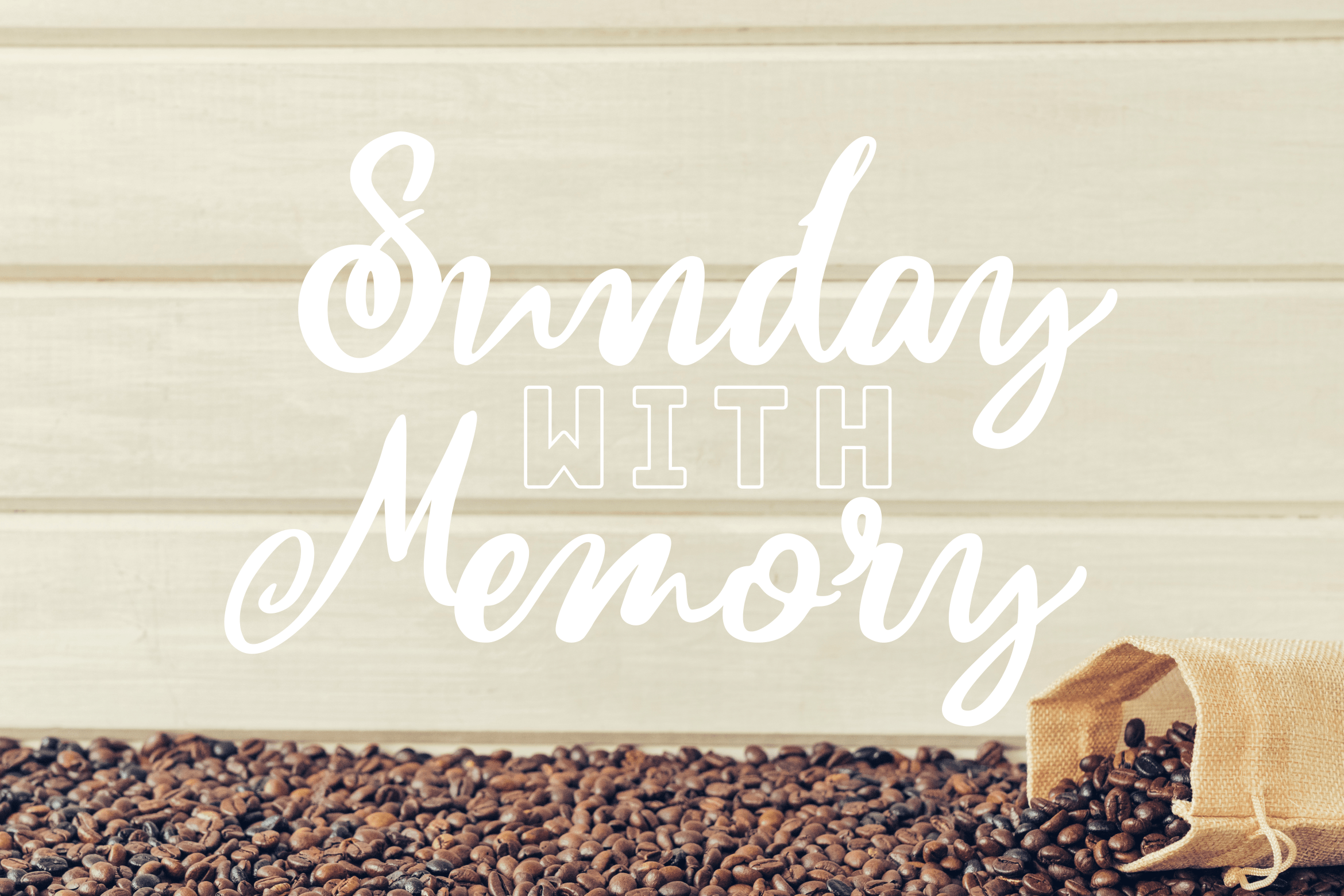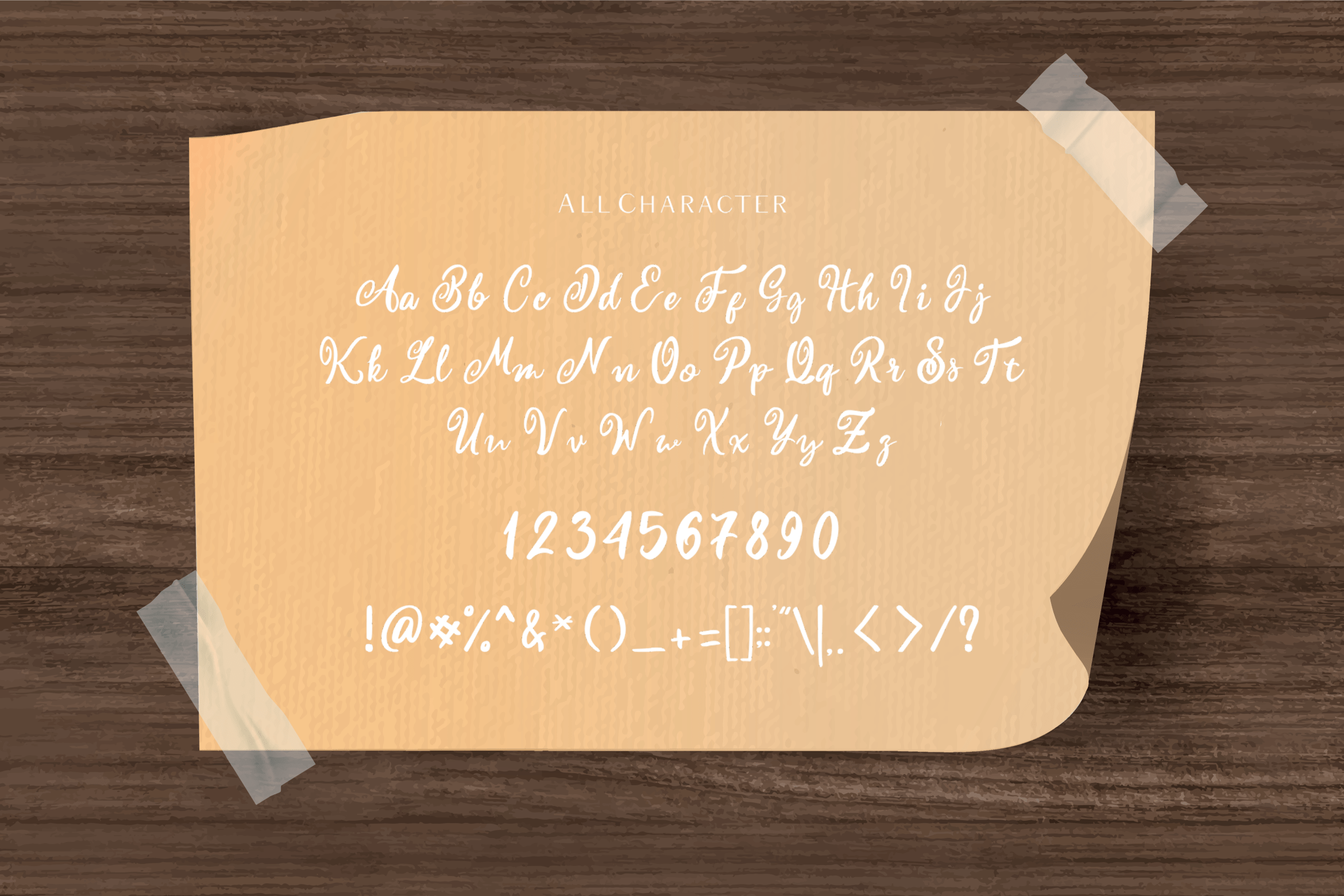
Coffeebreak Font is a Modern Calligraphy Font. Coffeebreak is perfect for product packaging, branding project, magazines, social media, weddings, coffee shops, or just used to express words above the background.